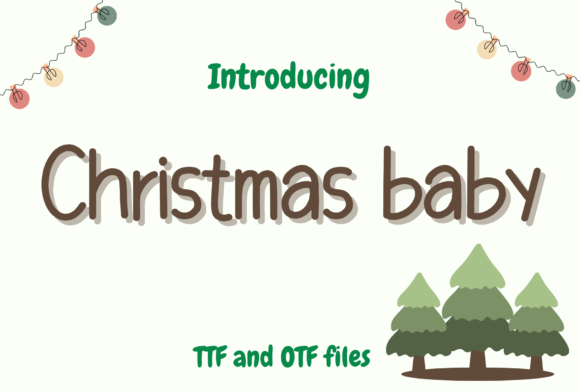
Introducing the Christmas Baby Font: A Delightful Addition to Your Design Projects
The holiday season is upon us, and what better way to get into the festive spirit than with a charming and delightful font? Look no further than the Christmas Baby font, a handwriting-style font that is sure to bring joy and happiness to your design projects. In this article, we’ll explore the features and benefits of the Christmas Baby font, and how it can be used to elevate your designs, from presentations and education materials to advertising and illustrations.
A Versatile and Simple Design
The Christmas Baby font boasts a simple yet elegant design, making it a versatile choice for a wide range of applications. Its handwriting style gives it a personal and friendly feel, perfect for creating a connection with your audience. Whether you’re designing a presentation, creating educational materials, or crafting an advertisement, the Christmas Baby font is sure to add a touch of warmth and personality to your project.
Perfect for Display Fonts
One of the standout features of the Christmas Baby font is its suitability for display fonts. Its bold and playful design makes it perfect for grabbing attention and adding a pop of personality to your project. Use it as a title font, a heading, or even as a decorative element to add visual interest to your design. The Christmas Baby font is sure to bring a sense of happiness and joy to your projects, making it a superb option for designers looking to create engaging and festive designs.
Ideal for Education Materials and Presentations
Education materials and presentations often require a font that is clear, easy to read, and engaging. The Christmas Baby font fits the bill perfectly. Its simple and handwriting-style design makes it easy to read, even for younger audiences. Use it to create educational materials, such as worksheets, activity sheets, and even presentations, that will capture the attention of your students and make learning fun.
Enhance Your Advertising and Illustrations
The Christmas Baby font is also a great choice for advertising and illustrations. Its playful and festive design makes it perfect for creating eye-catching advertisements, social media graphics, and illustrations that will grab attention and spread holiday cheer. Use it to create festive-themed ads, holiday cards, and even illustrations that will add a touch of personality to your brand.
Perfect for Stickers and Multi-Purpose Design Applications
The Christmas Baby font is not just limited to digital designs. Its simple and playful design makes it perfect for stickers, labels, and other multi-purpose design applications. Use it to create festive-themed stickers, labels, and even gift tags that will add a personal touch to your gifts and designs.
Why Choose the Christmas Baby Font?
So, why choose the Christmas Baby font for your design projects? Here are just a few reasons:
• Delightful and charming handwriting style: The Christmas Baby font boasts a simple yet elegant design that is sure to bring joy and happiness to your projects.
• Versatile and simple design: Use it for a wide range of applications, from presentations and education materials to advertising and illustrations.
• Perfect for display fonts: Its bold and playful design makes it perfect for grabbing attention and adding a pop of personality to your project.
• Ideal for education materials and presentations: Its simple and handwriting-style design makes it easy to read, even for younger audiences.
• Enhance your advertising and illustrations: Its playful and festive design makes it perfect for creating eye-catching advertisements, social media graphics, and illustrations.
Font Name Christmas Baby Font
Author Candygirl Art
In conclusion, the Christmas Baby font is a delightful and charming addition to any design project. Its versatile and simple design makes it perfect for a wide range of applications, from presentations and education materials to advertising and illustrations. Its suitability for display fonts, education materials, and multi-purpose design applications makes it a superb option for designers looking to create engaging and festive designs. So, why not give the Christmas Baby font a try and add a touch of holiday cheer to your designs?